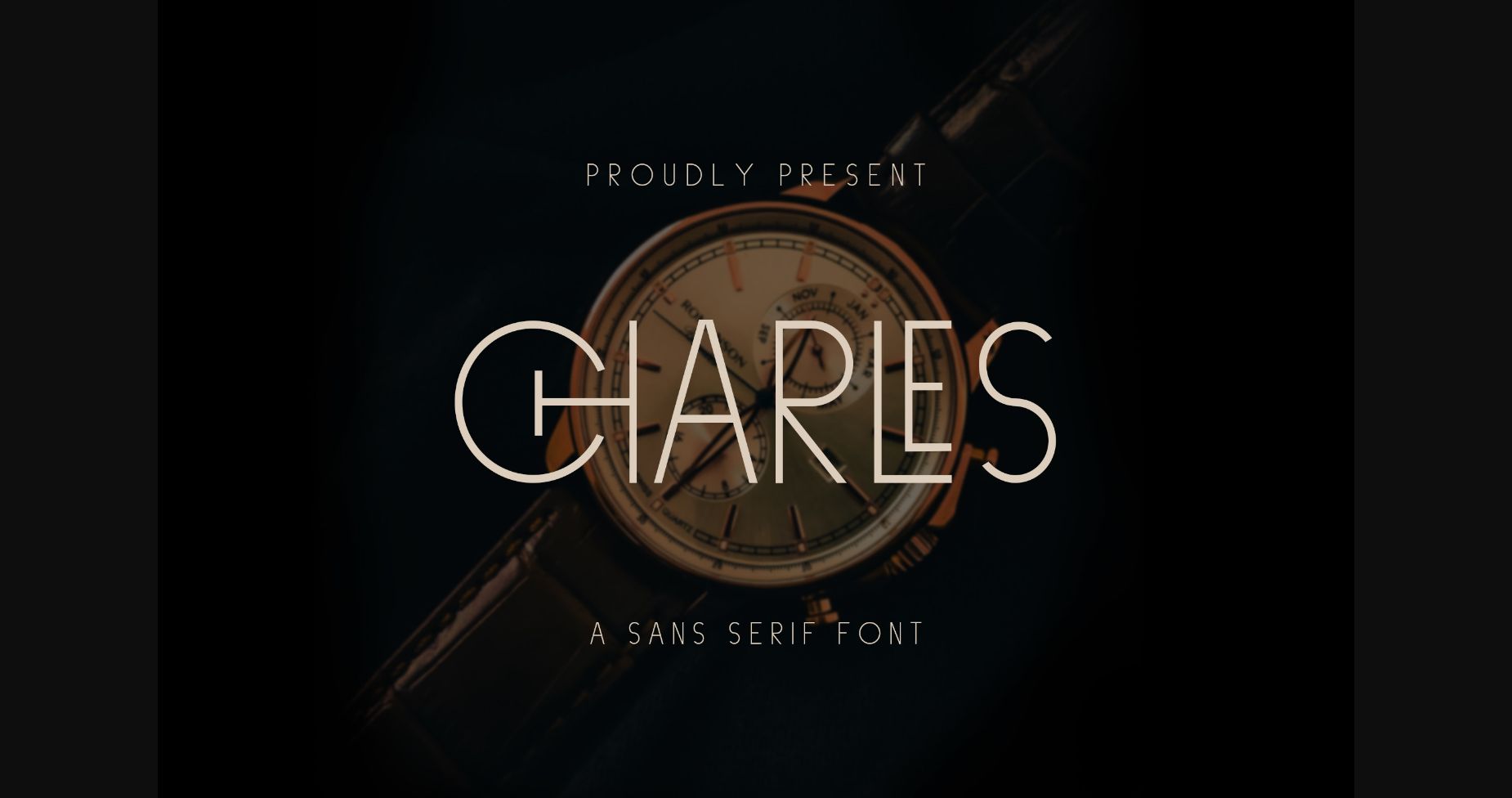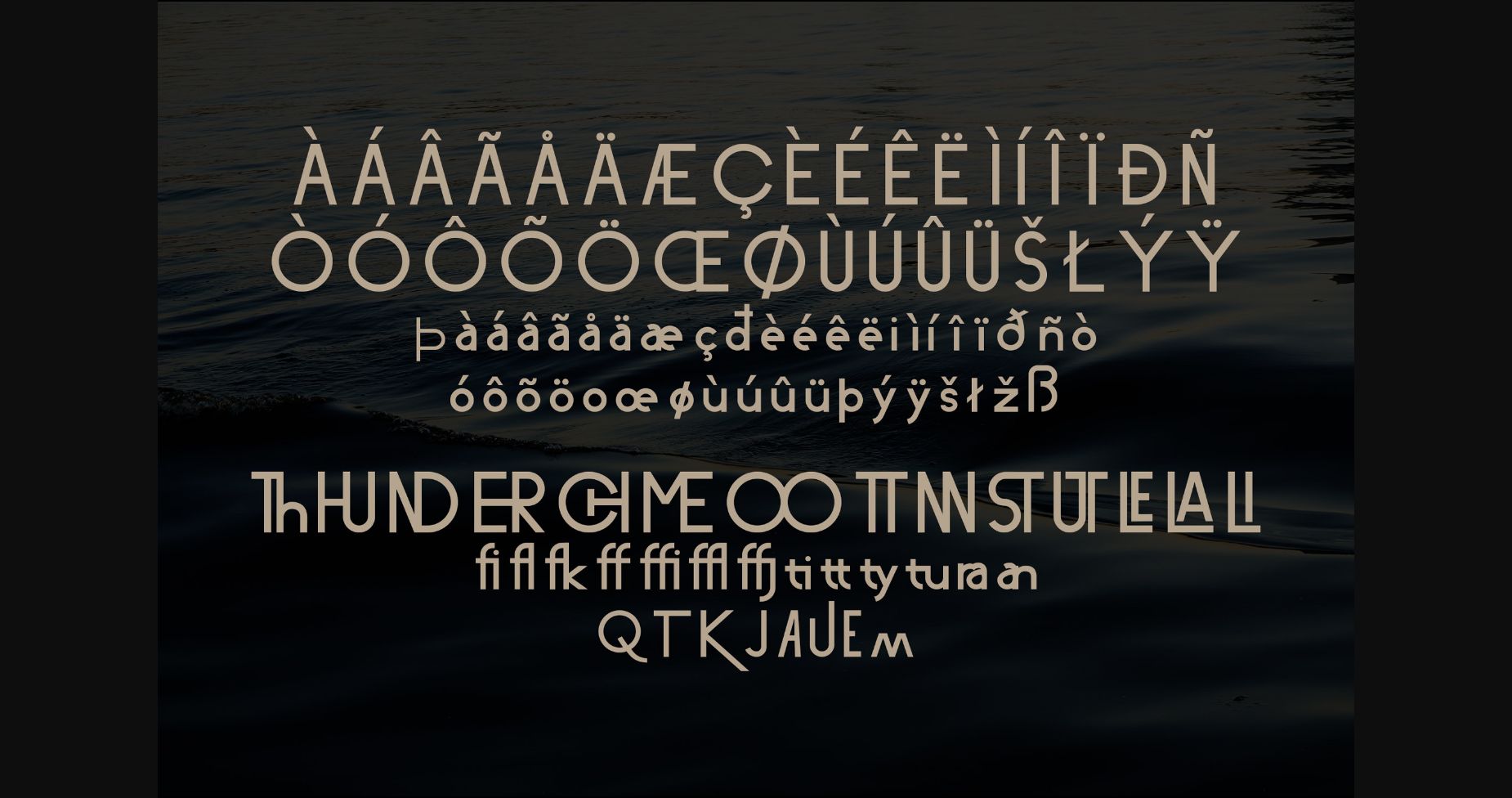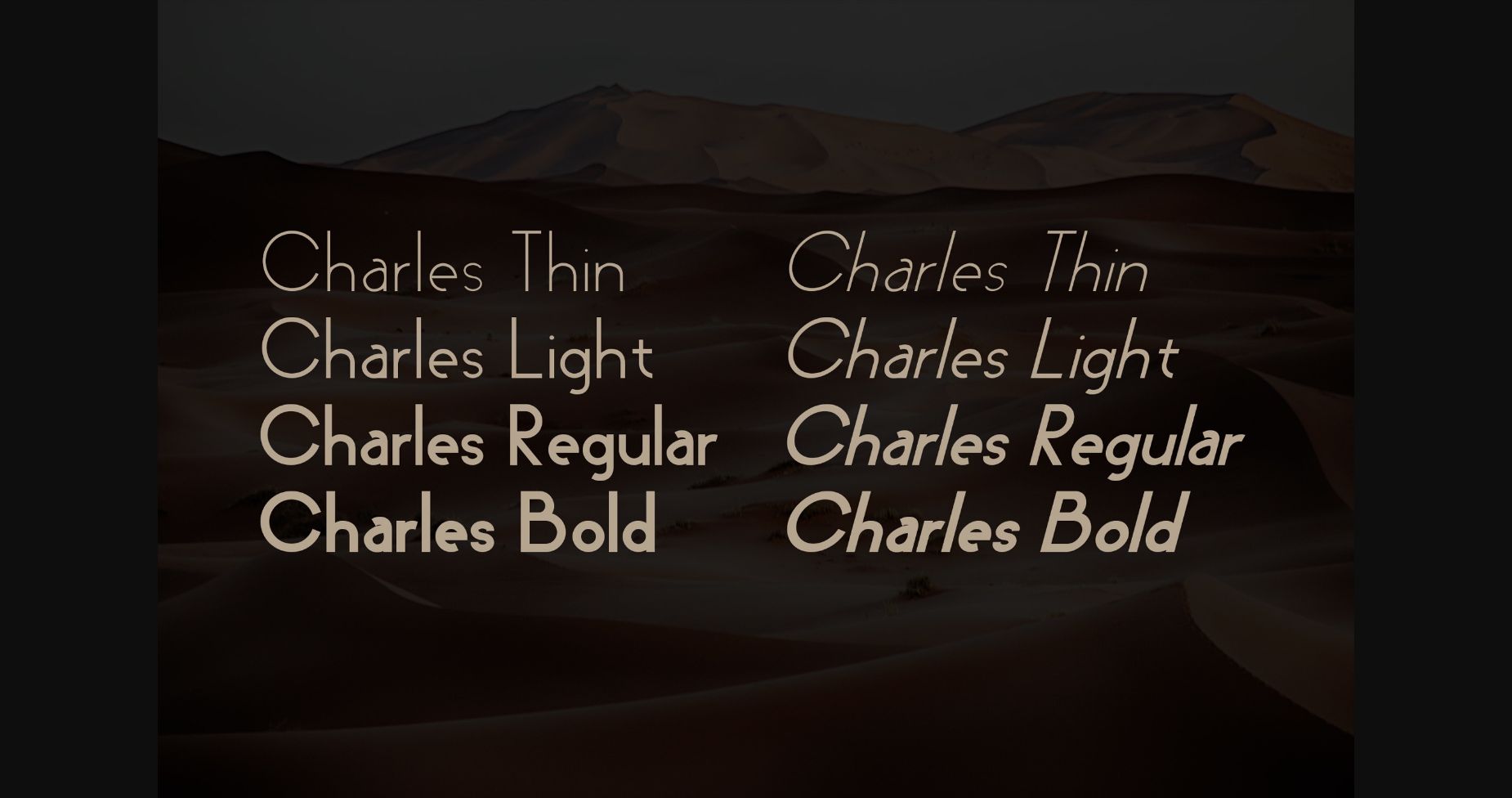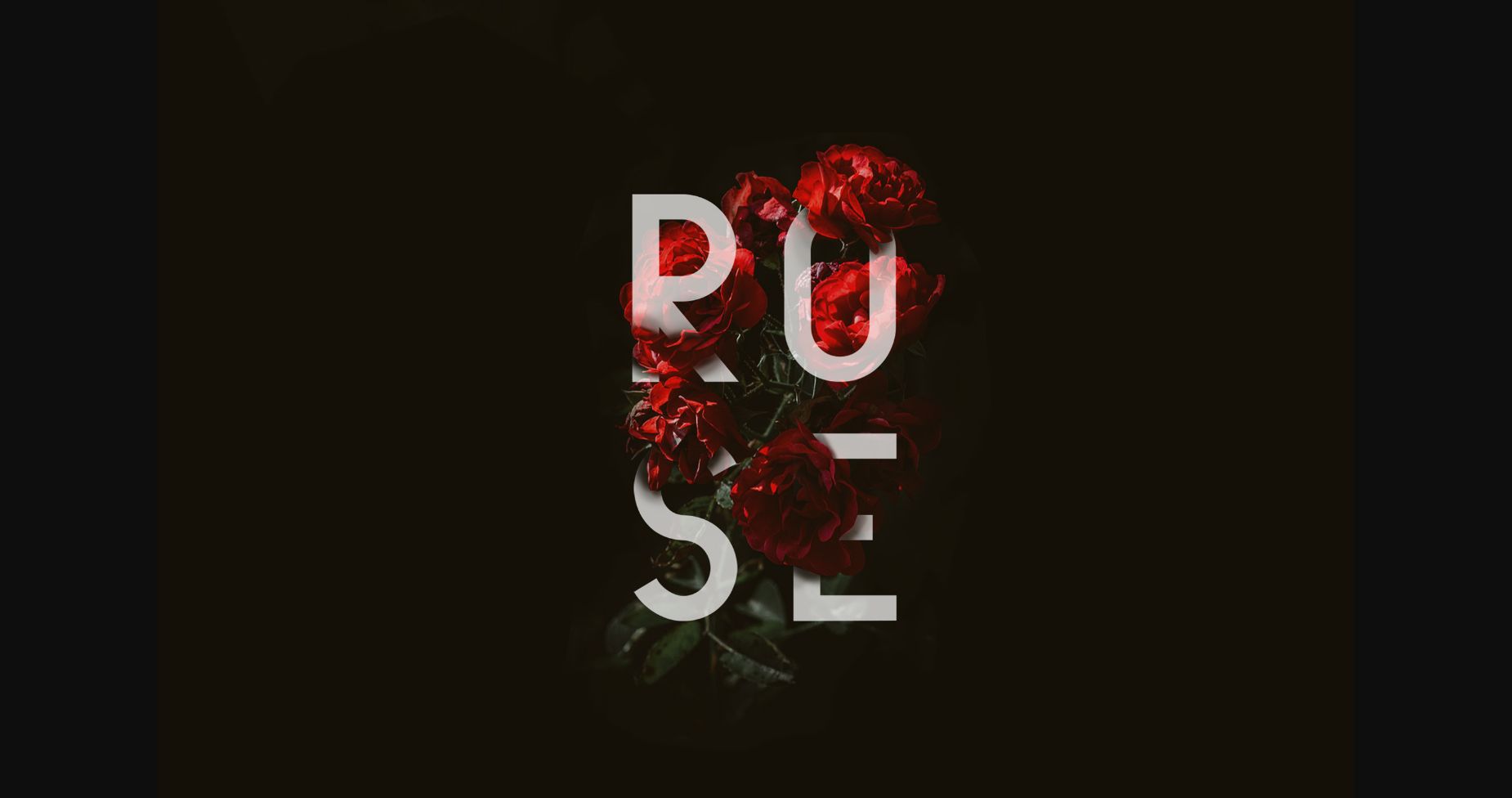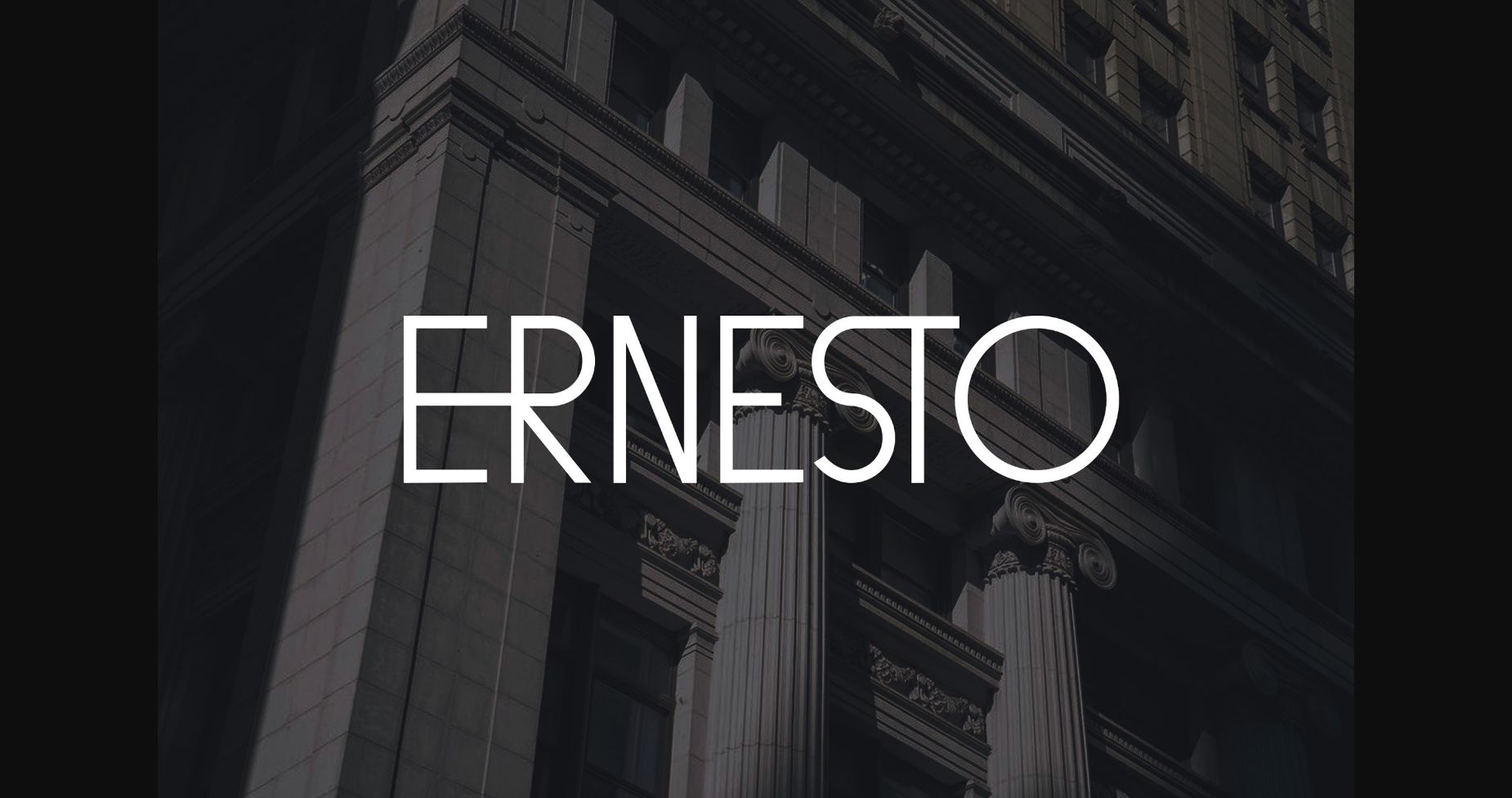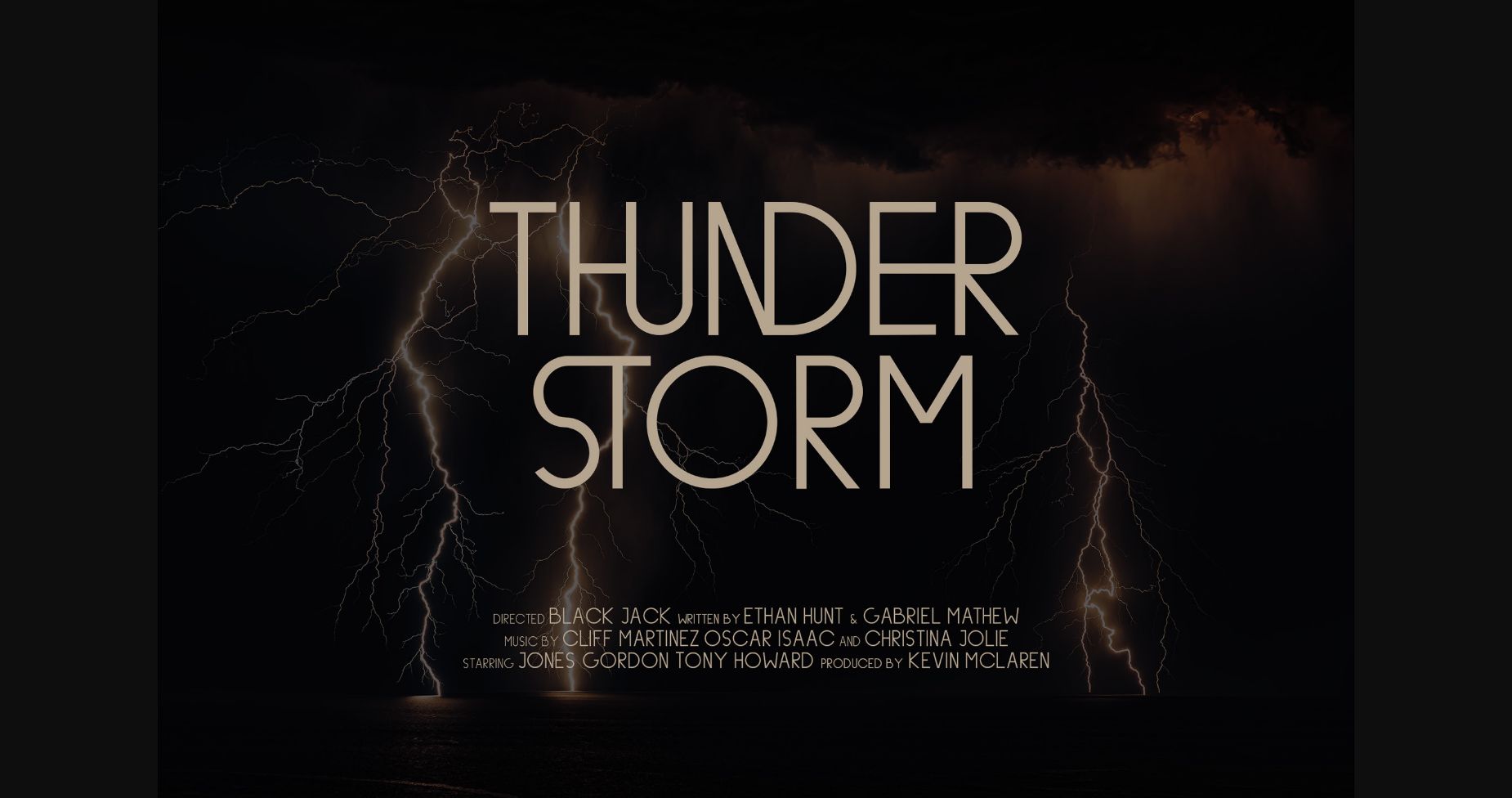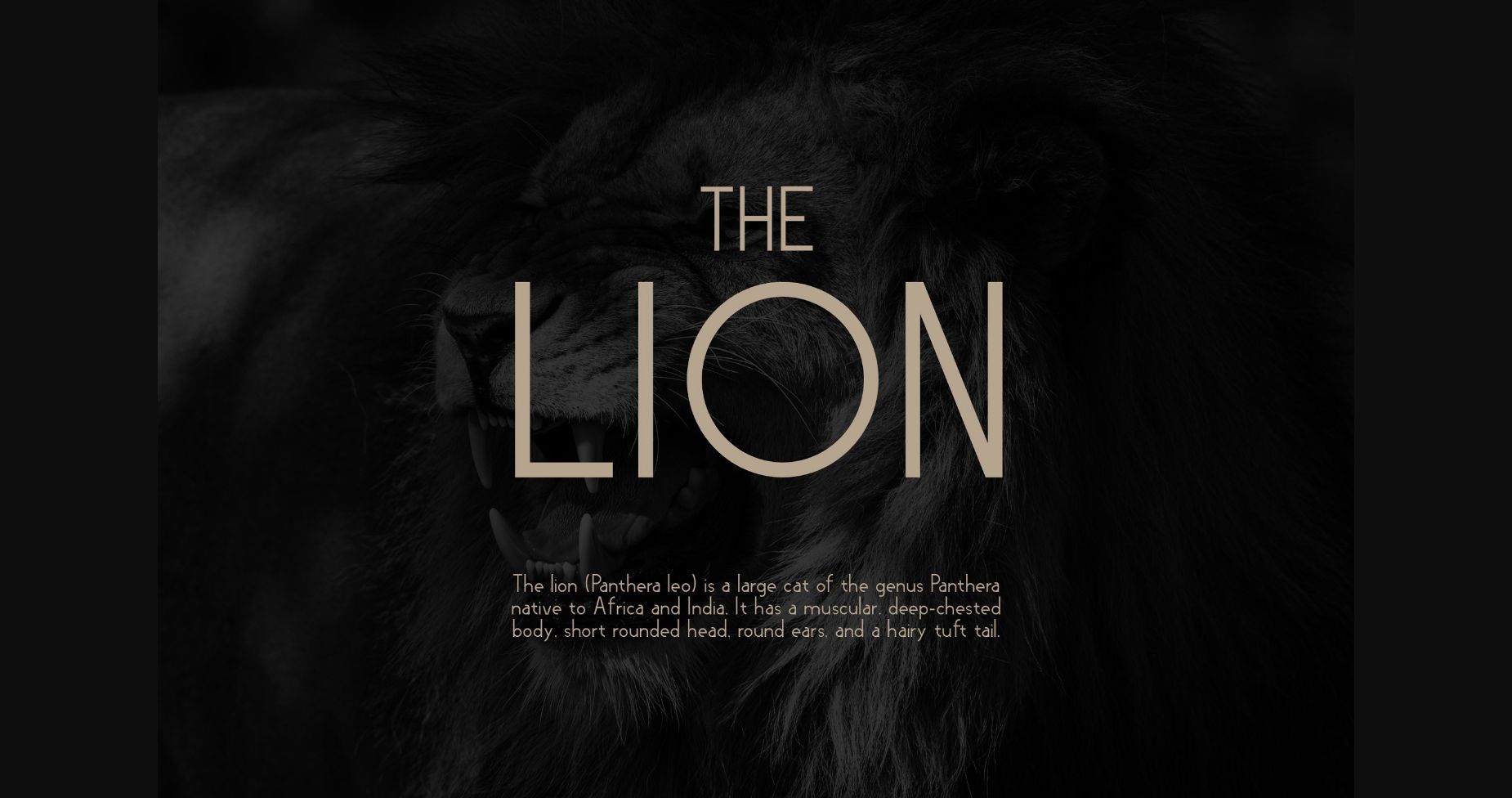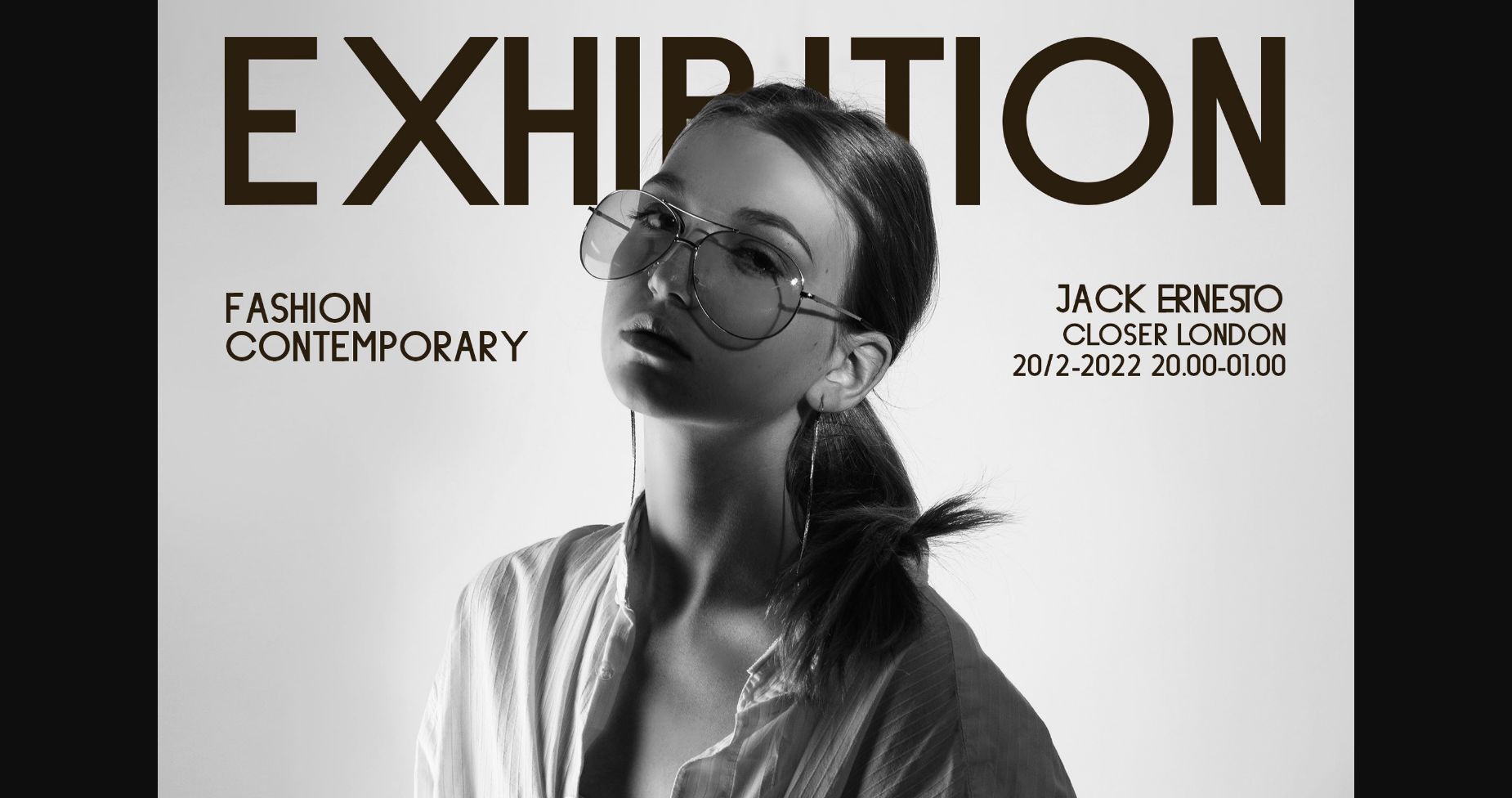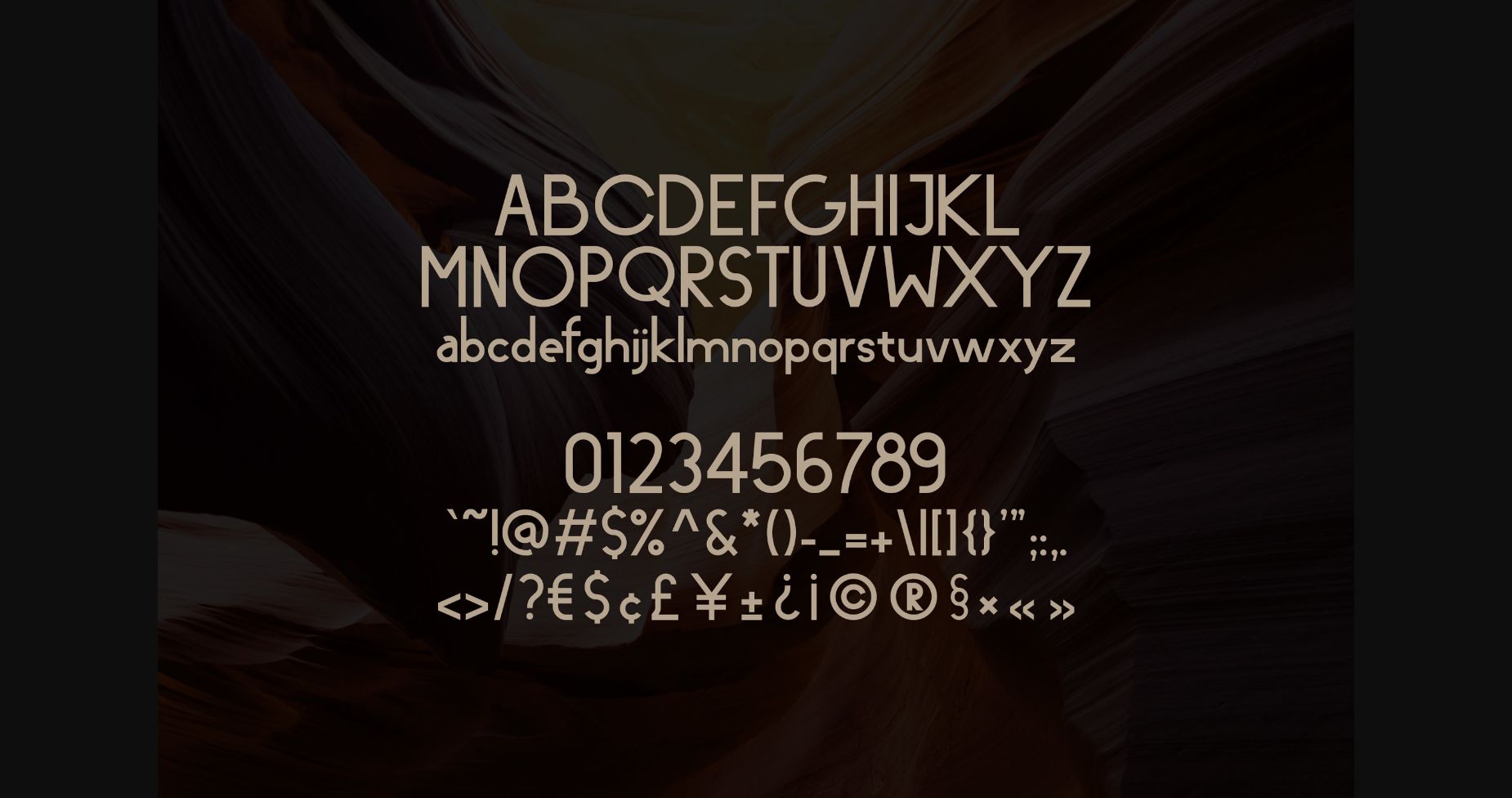
HomeSans Serif FontsCharles Font Sans Serif Fonts Charles Font FacebookTwitterPinterestWhatsApp 1 of 11 ... Charles Font Poster 2... Charles Font Poster 3... Charles Font Poster 4... Charles Font Poster 5... Charles Font Poster 6... Charles Font Poster 7... Charles Font Poster 8... Charles Font Poster 9... Charles Font Poster 10... Charles Font Poster 11... About Charles Font Charles is a clean and modern sans serif font. Whatever the topic, this font will be a wonderful asset to your font library, as it has the potential to enhance any creation. DOWNLOAD NOW People also explored Pinky Pinky Font Cartager Font Queenlove Font Good Vibes Only Font Greaner Font Patsy PB Vonzy Font Laquittea Font Find Happiness Font 138 0 TagsCharlesCharles Font Previous articleOlive FontNext articleMythical Prince Font LEAVE A REPLY Cancel reply Comment: Please enter your comment! Name:* Please enter your name here Email:* You have entered an incorrect email address! Please enter your email address here Website: Save my name, email, and website in this browser for the next time I comment. Personal Use Free 08 Underground Personal Use Free Read more about this font Nottingsam Personal Use Free Read more about this font Bulky Personal Use Free Read more about this font Roland Personal Use Free Read more about this font BLOG Free vs Paid Fonts: Why Investing in Premium Fonts Is Worth It Free vs Paid Fonts: Why Premium Fonts Are Worth It in 2025 The debate of free vs paid fonts continues in the design world. While... Elegant Wedding Invitation Fonts – Handwritten & Script Fonts Free Fonts Risk: Why Free Fonts Can Be Dangerous for Designers Where to Buy American Fonts Online in 2024